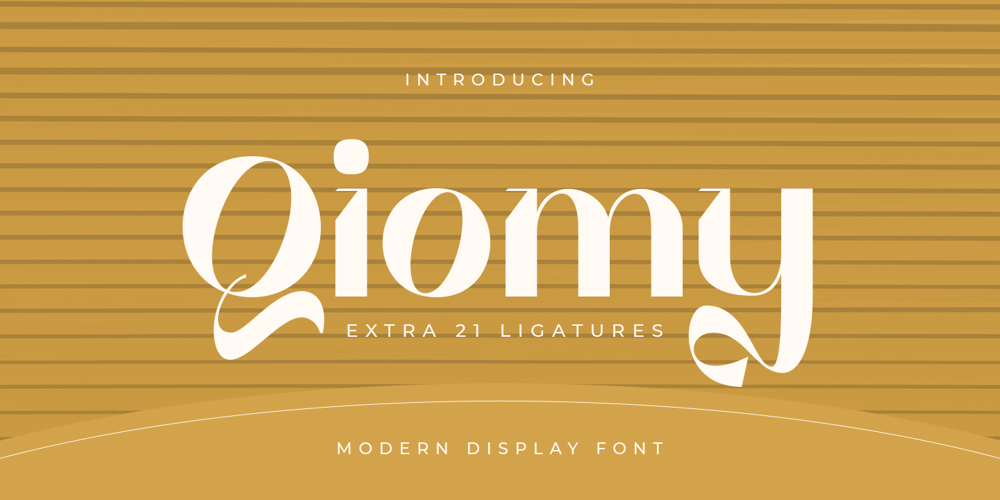
Qiomy Style Font Family was designed by Zamroni Hamzah and published by Sensatype Studio. Qiomy Style contains 1 styles and family package options. Qiomy is A New Display font that perfect for unique Branding and any Design needsA New font that we created special for Unique branding needs, with unique style that ready to add value of your brand. It’s so nice to leverage designer or product owner that need solutions to make their design look more unique, Stylish and elegant.Qiomy New Display font ready with: Lowercase and Uppercase characters with Ligatures Numbers and Punctuations Preview as a inspirations that you can do with Qiomy font Available for PC and Mac Wish you enjoy our font.